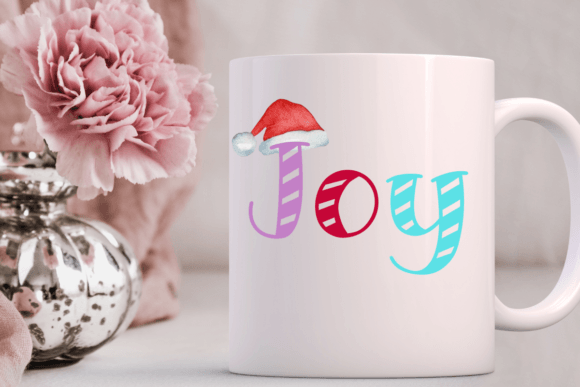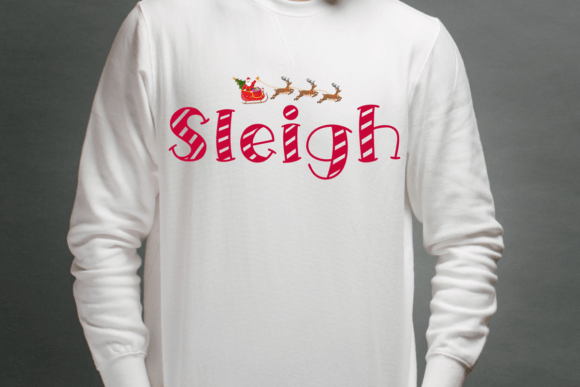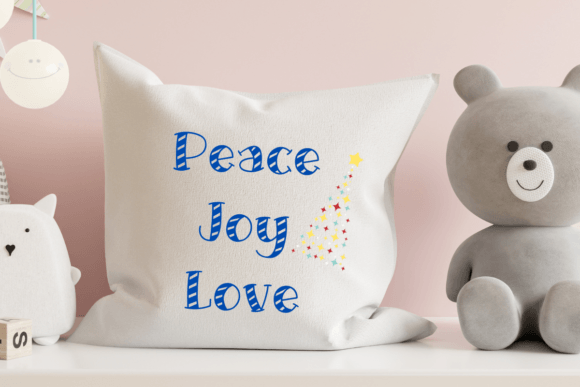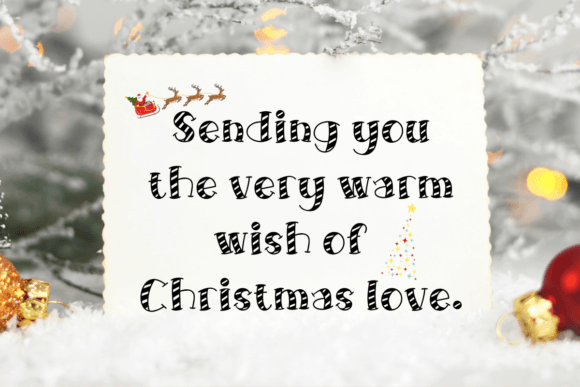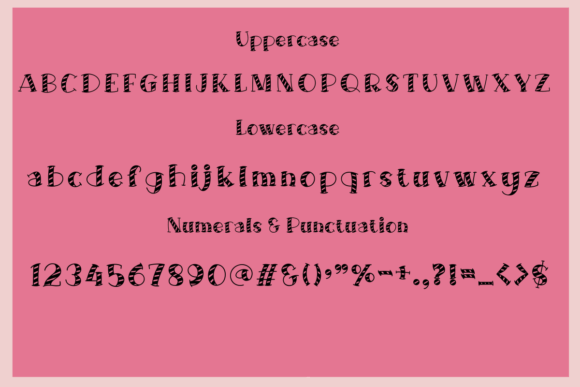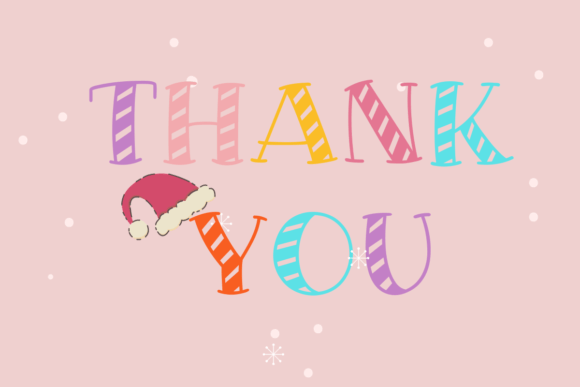
Introduction to Holly Jolly Font
Holly Jolly Font effortlessly blends retro charm with playful flair, enhancing greeting cards, stylish wear, and captivating stickers.
This versatile font fits well as a cute planner, digital or handwritten style, a GoodNotes title, Canva creation, and across various file formats (OTF, TFF) Its allure as a lovely, adaptable Christmas display font adds a touch of festive nostalgia to diverse design projects.
Key Features of Holly Jolly Font
Why Choose Holly Jolly Font?
Holly Jolly Font offers exceptional quality and versatility, making it a valuable addition to your design toolkit. Whether you’re creating for personal projects or commercial use, Holly Jolly Font delivers professional results.